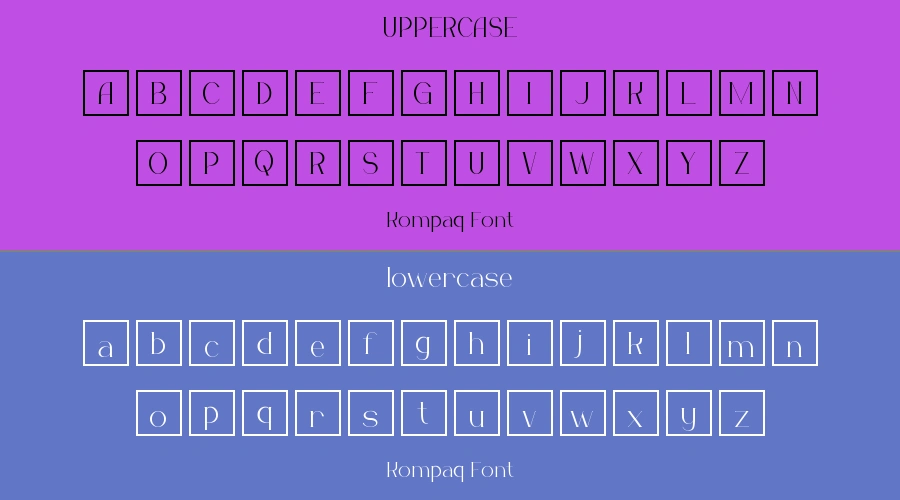
About Kompaq Font
Designed with precision, Kompaq Font merges circular bowls with accuracy in every character. This versatility makes it particularly effective for medical writing, where adaptability and design innovation directly impact communication quality. Each letterform demonstrates meticulous craftsmanship.
Technical excellence shines through elements like creative flair and historical accuracy, enhancing typographic versatility. In brand logos settings, Kompaq Font proves its worth through superior digital conversion. The thoughtful execution of spur details and technical tradition ensures professional results.